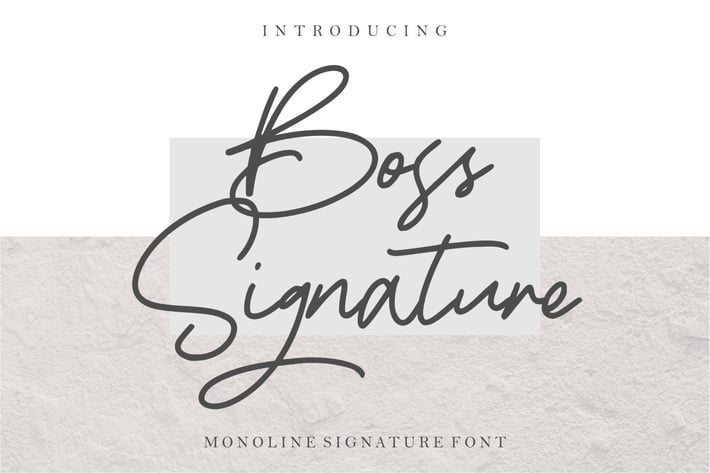
Boss Signature | Handwritten Font
Introducing to the new signature font: Boss Signature
Boss Signature font is a natural & modern handwritten font. I'ts Perfect for logo, invitation, stationery, wedding designs, social media posts, advertisements, product packaging, product designs, label, photography, watermark, special events or anything. This font include : Boss Signature OTF-TTF-WOFF and also Multilingual support.
Very great for branding, logotype, handletteing, invitations, or fashion branding.